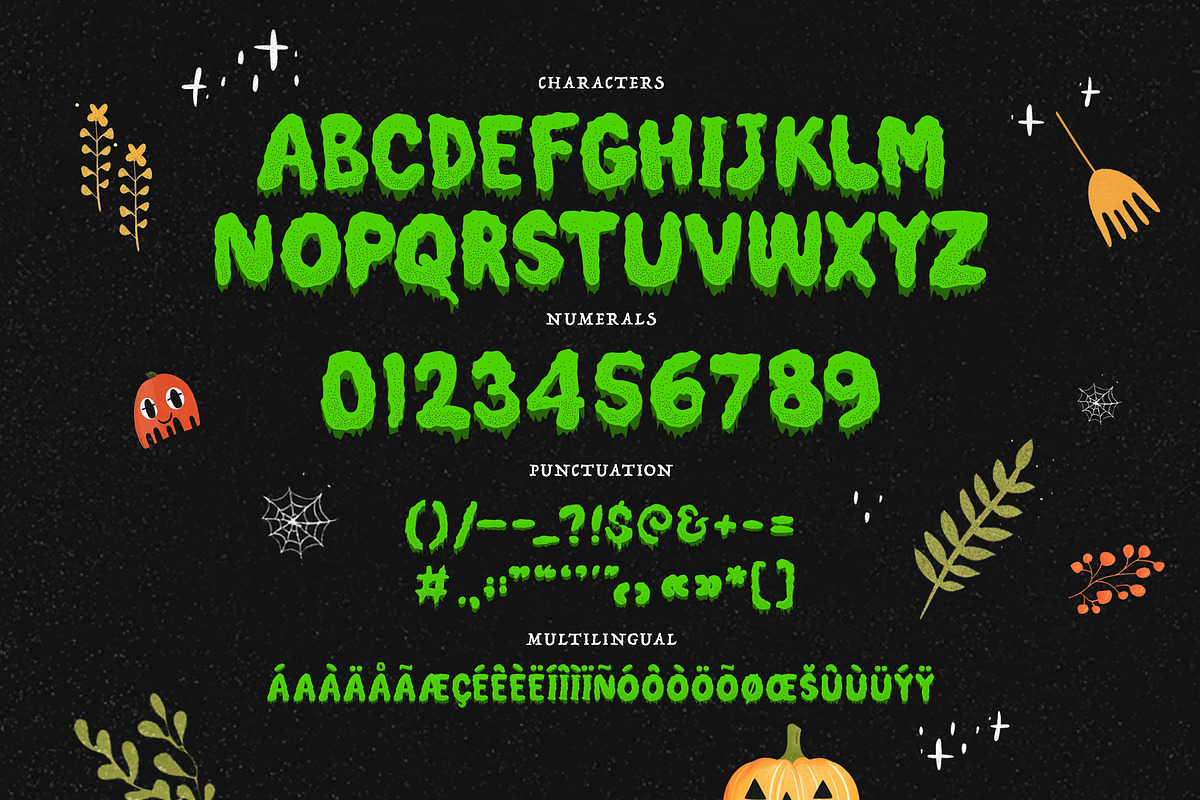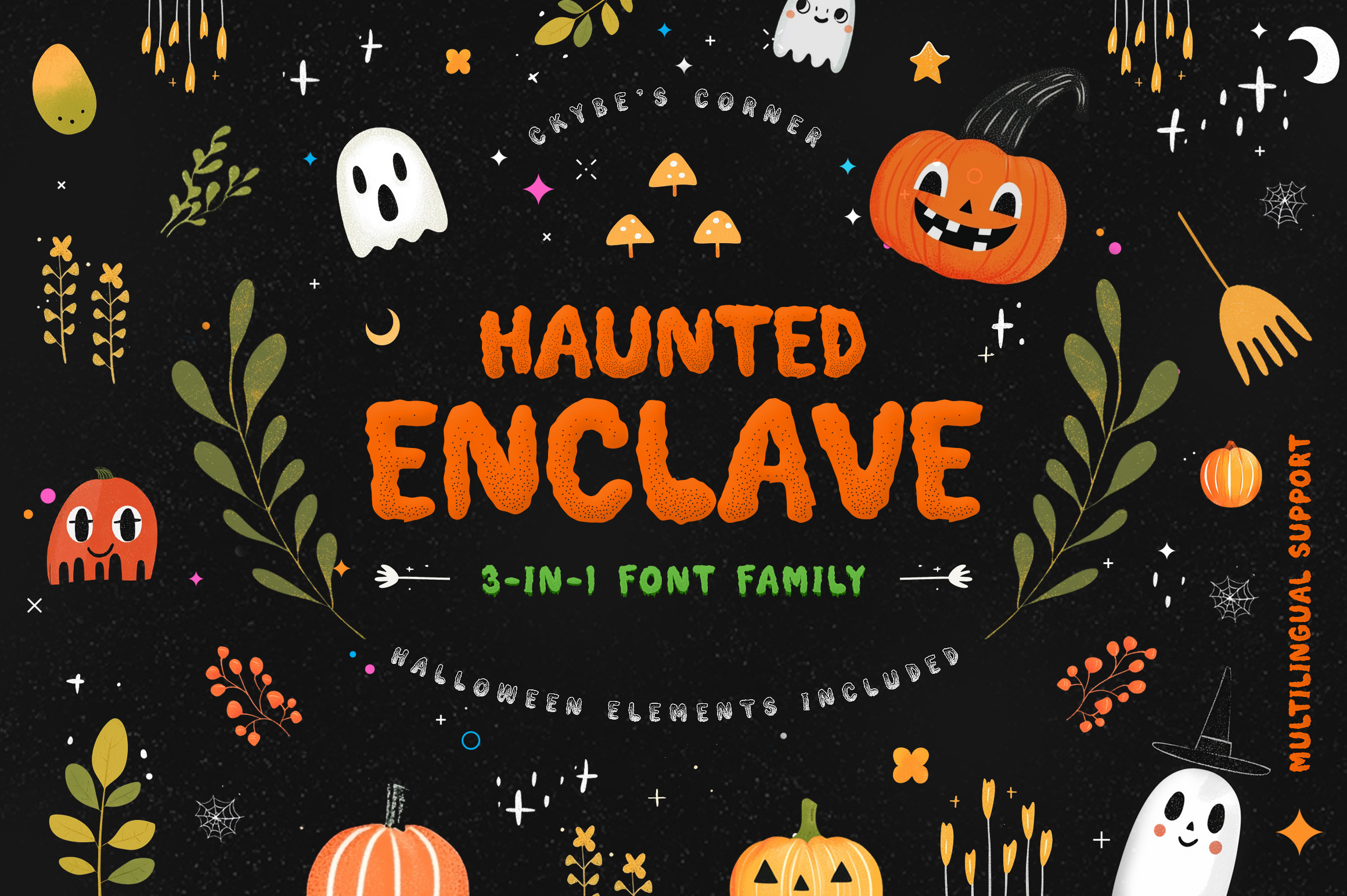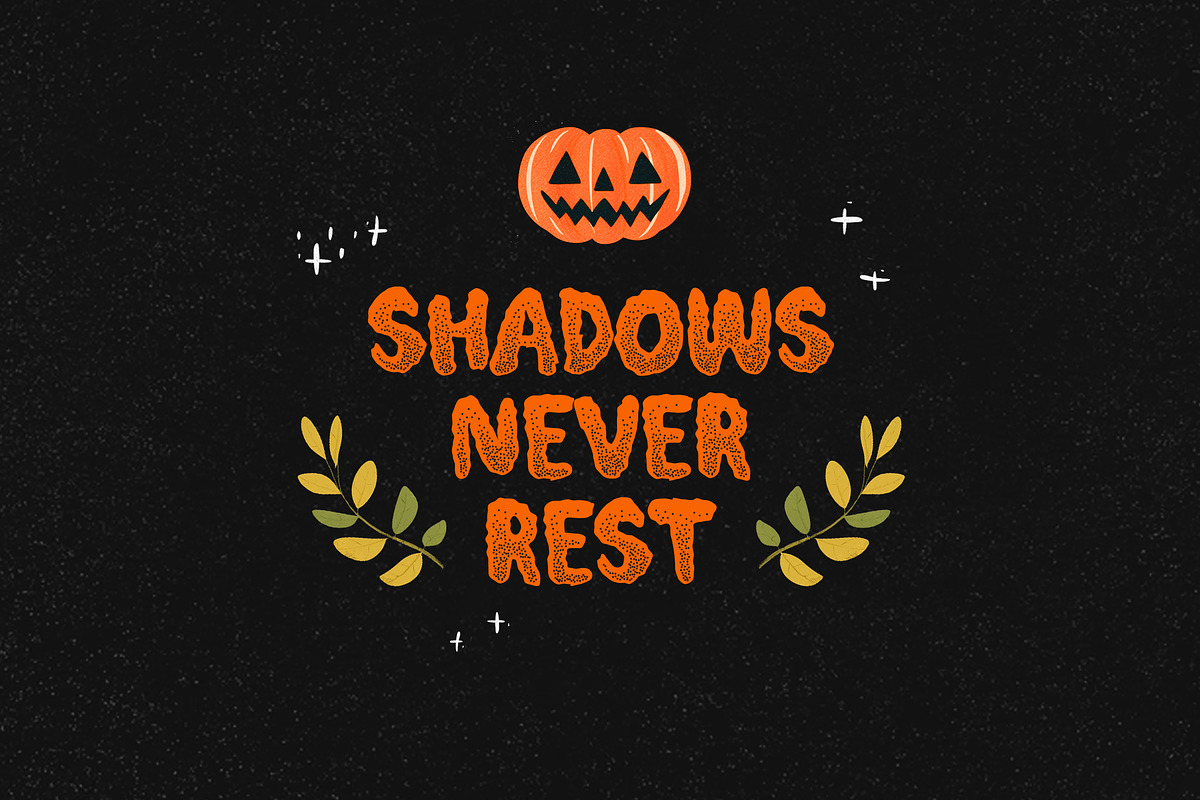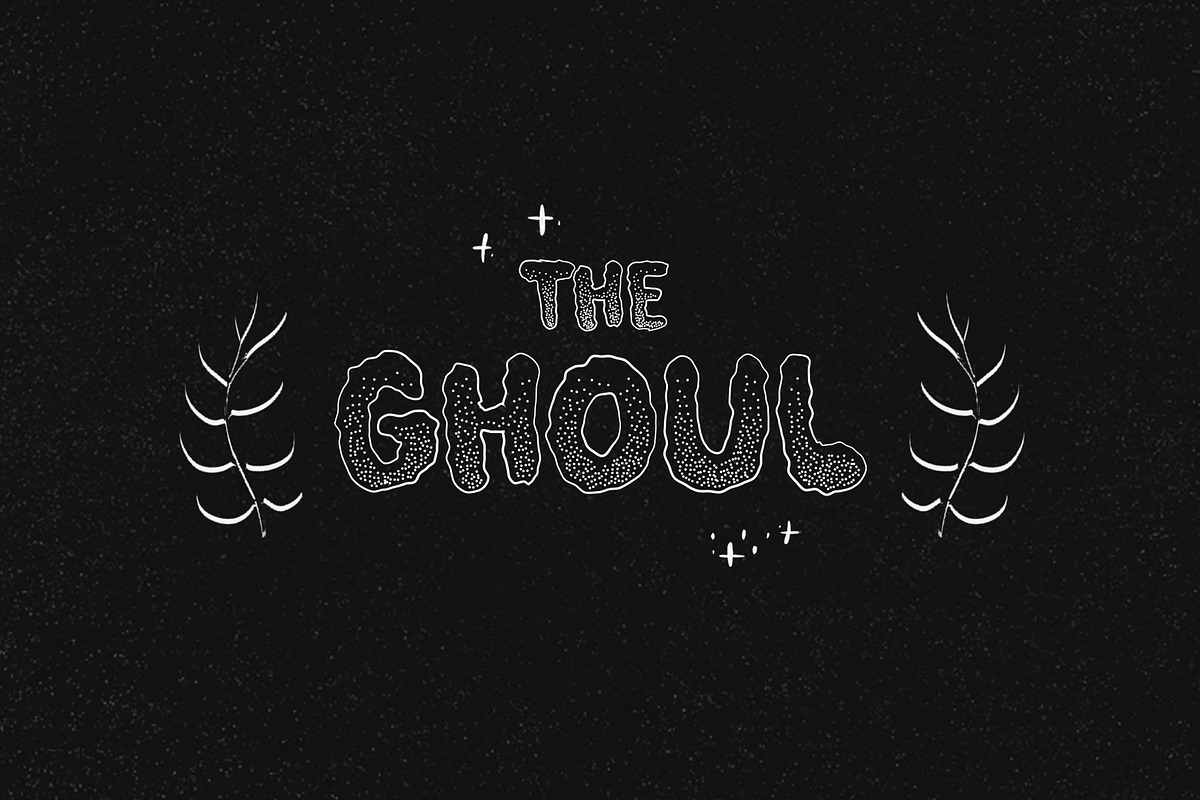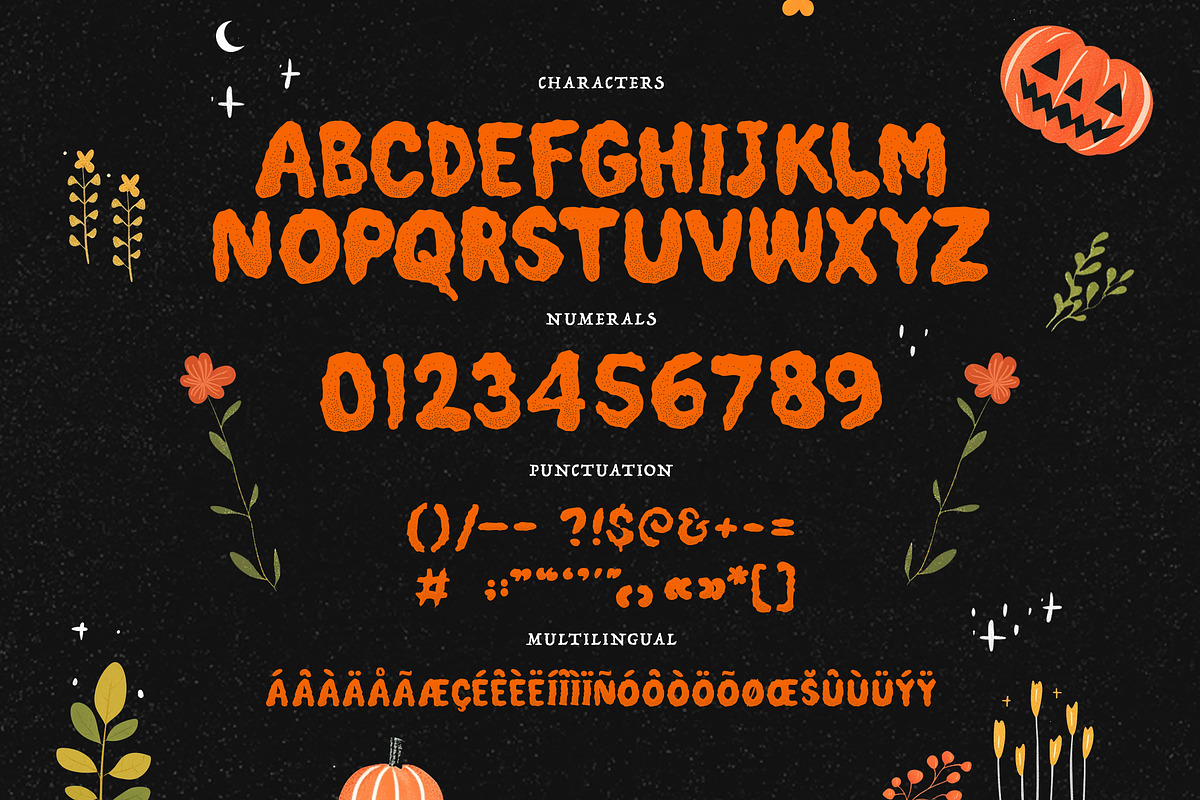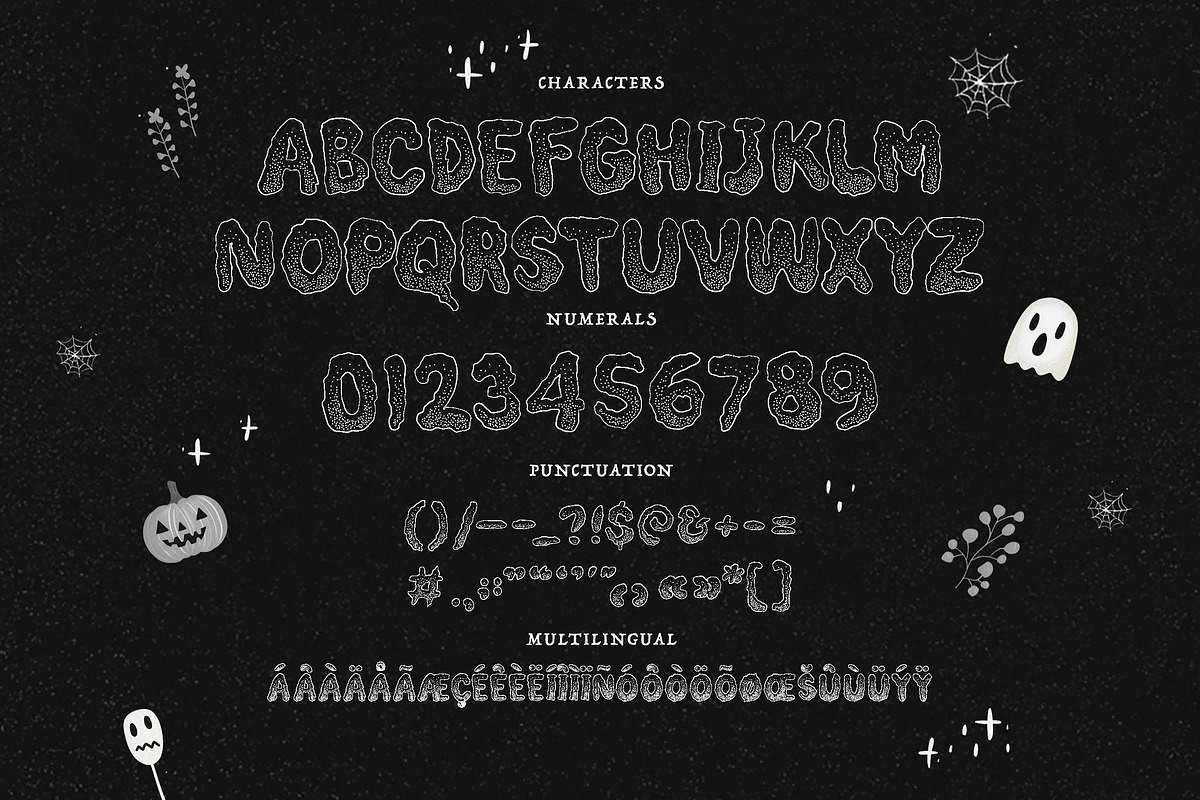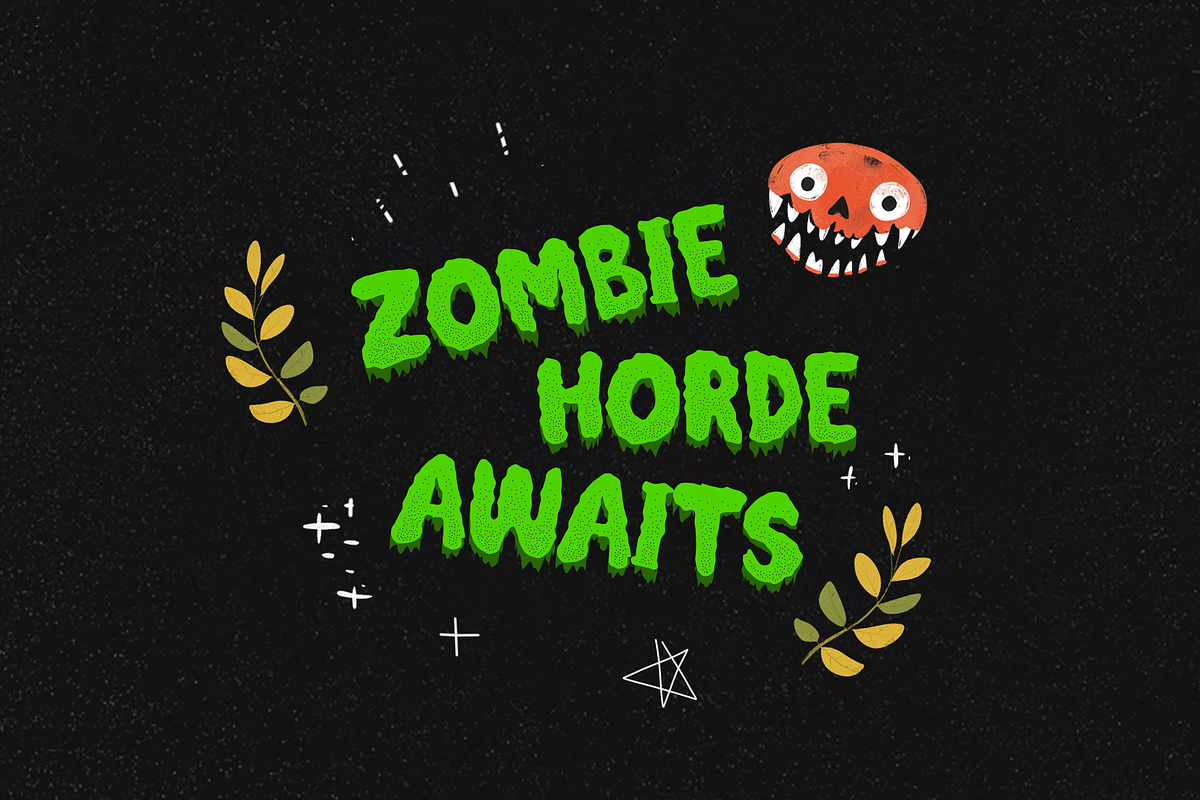
HAUNTED ENCLAVE | Halloween Fonts
Haunted Enclave Font Set is a chillingly perfect addition to your Halloween designs. This 3-in-1 font collection features:
Pumpkin Red – A bold, fiery orange typeface that captures the essence of glowing jack-o'-lanterns.
Zombie Green – An eerie, neon-green font evoking the ghastly glow of the undead.
Ghouly White – A haunting, spectral white font that feels like it’s written by ghosts themselves.
In addition to these spooky fonts, the set also includes exclusive Halloween-themed PNGs – perfect for enhancing your designs with elements like pumpkins, floral, mushroom, cobwebs etc. Create the ultimate haunting vibe with this versatile font set!